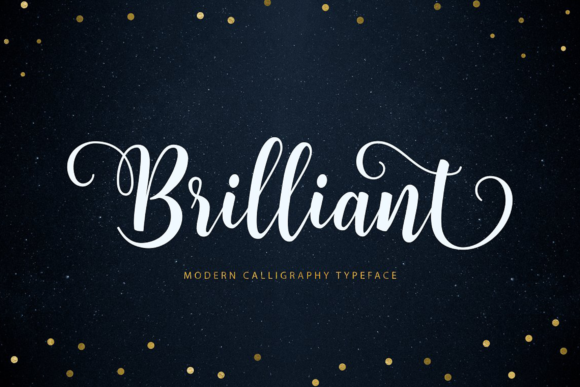
The Designer’s Delight: A Deep Dive into the Brilliant Font
I’ll never forget the time I was working on a project for a client who wanted a elegant and sophisticated look. I had spent hours browsing through font libraries, but nothing seemed quite right. That was until I stumbled upon the Brilliant font. Its delicate, flowing script immediately caught my eye, and I knew I had found the perfect fit. In this article, I’ll share my experience with the Brilliant font, its features, and how to make the most of it in your designs.
An Honest Review of Brilliant Font
- ✨ Delicate and elegant handwritten style
- ✅ Well-balanced characters that match a wide range of designs
- 🎉 PUA encoded for easy access to glyphs and swashes
- 🔥 Stunning alternates and gorgeous glyphs
While the Brilliant font is incredibly versatile, there are a few things to keep in mind:
- ⚠️ Some users may find the font a bit too delicate for certain design projects
- 🤔 Limited use of bold or heavy weights, which may not be suitable for all designs
A Practical Guide to Using Brilliant Font
The Story Behind Brilliant Font
The Brilliant font was designed with the intention of creating a beautiful and elegant handwritten script that could be used for a wide range of design projects. The designer, who wishes to remain anonymous, was inspired by classic calligraphy and modern typography. The result is a font that’s both timeless and trendy.
Q: What is the Brilliant font best used for?
A: The Brilliant font is perfect for designs that require an elegant and sophisticated touch, such as wedding invitations, event branding, and luxury packaging.
Q: Is the Brilliant font suitable for body text?
A: While the Brilliant font is beautiful, it’s best used for headings and titles. Its delicate nature may not be suitable for large blocks of body text.